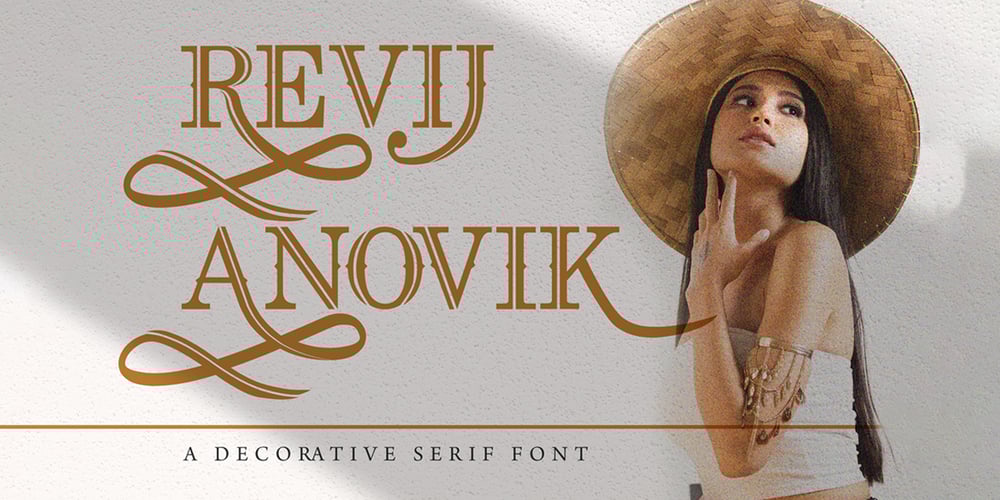
Revij Anovik Font Family was designed by Virgiawan Listanto and published by Stringlabs Creative Studio. Revij Anovik contains 1 styles and family package options. Revij Anovik is a unique and modern decorative serif font. This playfully conceptual typeface font will look truly outstanding in a wide range of contexts.